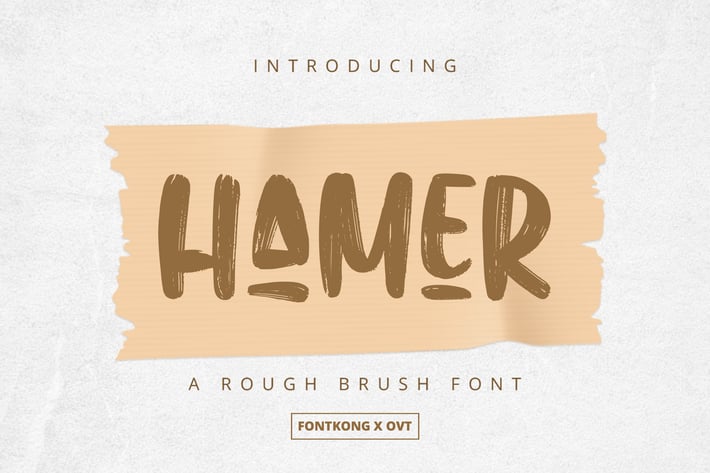
Hamer - Rough Brush Font
Introducing "Hamer," a rough brush font that exudes raw energy and bold expression. Perfect for graphic designers, typographers, and creatives looking to make a powerful impact, Hamer offers a rugged and dynamic typeface that stands out with its textured strokes and unrefined charm.
Ideal for posters, logos, packaging, apparel, and branding, Hamer’s bold characters provide a striking and edgy aesthetic. Each letter is meticulously crafted to convey a sense of movement and intensity, making your designs both captivating and unforgettable.
The "Hamer" font includes a complete set of uppercase and lowercase letters, numbers, punctuation marks, and special characters. This versatile set ensures seamless integration into various design projects, from impactful posters to bold logos.
Infuse your designs with raw energy and bold expression using Hamer, the rough brush font that transforms every project into a statement piece.
Introducing "Hamer," a rough brush font that exudes raw energy and bold expression. Perfect for graphic designers, typographers, and creatives looking to make a powerful impact, Hamer offers a rugged and dynamic typeface that stands out with its textured strokes and unrefined charm.
Ideal for posters, logos, packaging, apparel, and branding, Hamer’s bold characters provide a striking and edgy aesthetic. Each letter is meticulously crafted to convey a sense of movement and intensity, making your designs both captivating and unforgettable.
The "Hamer" font includes a complete set of uppercase and lowercase letters, numbers, punctuation marks, and special characters. This versatile set ensures seamless integration into various design projects, from impactful posters to bold logos.
Infuse your designs with raw energy and bold expression using Hamer, the rough brush font that transforms every project into a statement piece.